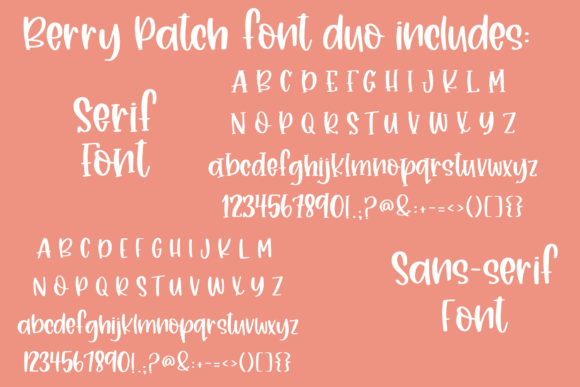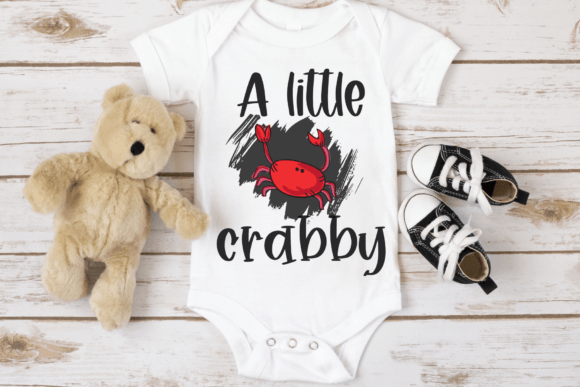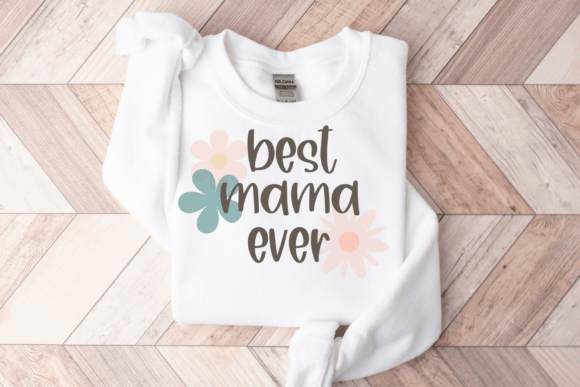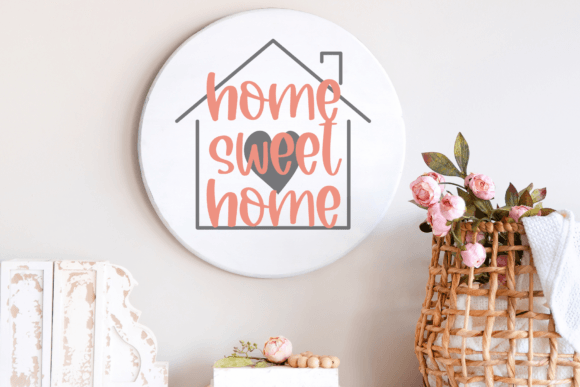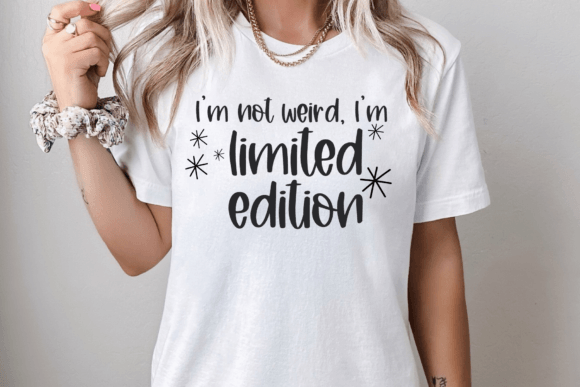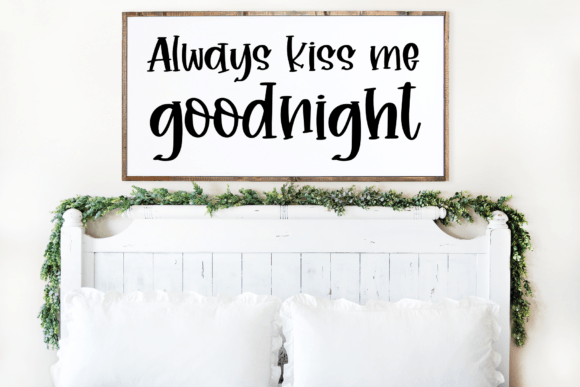
Berry Patch Font: The Sweetest Addition to Your Design Toolbox
Are you a designer or crafter looking for a font that adds a touch of elegance and charm to your projects? Look no further than the Berry Patch font! This sweet and lovely handwritten font is perfect for creating beautiful designs that stand out from the crowd. In this article, we’ll dive into the world of Berry Patch font and explore its features, benefits, and uses.
The Charm of Berry Patch Font
Berry Patch font is a beautiful, handwritten font that exudes warmth and friendliness. Its intricate curves and flowing lines give it a delicate, elegant feel that’s perfect for a variety of projects. Whether you’re designing a wedding invitation, a craft pattern, or a social media graphic, Berry Patch font is sure to add a touch of sweetness and sophistication.
Features of Berry Patch Font
So, what makes Berry Patch font so special? Here are just a few of its key features:
- Handwritten feel: Berry Patch font has a warm, handwritten feel that’s perfect for creating personal and inviting designs.
- Intricate curves: The font’s intricate curves and flowing lines give it a delicate, elegant feel.
- Versatile: Berry Patch font is versatile and can be used for a wide range of projects, from wedding invitations to craft patterns.
- Elegant and charming: The font’s elegant and charming feel makes it perfect for designs that require a touch of sophistication.
Benefits of Using Berry Patch Font
So, why should you choose Berry Patch font for your next project? Here are just a few of the benefits of using this beautiful font:
- Adds a personal touch: Berry Patch font adds a personal touch to your designs, making them feel more inviting and engaging.
- Perfect for branding: The font’s elegant and charming feel makes it perfect for branding projects that require a touch of sophistication.
- Easy to read: Despite its intricate curves, Berry Patch font is easy to read, making it perfect for designs that require a lot of text.
- Unique and creative: Berry Patch font is a unique and creative choice that will set your designs apart from the crowd.
Uses for Berry Patch Font
So, what can you use Berry Patch font for? The possibilities are endless! Here are just a few ideas to get you started:
- Wedding invitations: Berry Patch font is perfect for wedding invitations, adding a touch of elegance and romance to your designs.
- Craft patterns: The font’s intricate curves and flowing lines make it perfect for craft patterns, such as knitting or crochet patterns.
- Social media graphics: Berry Patch font is a great choice for social media graphics, adding a touch of personality and charm to your posts.
- Branding: The font’s elegant and charming feel makes it perfect for branding projects, such as logos, business cards, and letterheads.
Tips for Using Berry Patch Font
Here are a few tips for using Berry Patch font in your designs:
- Use it sparingly: Berry Patch font is a statement font, so use it sparingly to add a touch of elegance and charm to your designs.
- Pair it with a sans-serif font: Pair Berry Patch font with a sans-serif font to create a beautiful contrast and add visual interest to your designs.
- Experiment with colors: Berry Patch font looks beautiful in a variety of colors, so experiment with different colors to find the perfect one for your design.
In conclusion, Berry Patch font is a sweet and lovely handwritten font that’s perfect for adding a touch of elegance and charm to your designs. Its intricate curves and friendly feel make it an ideal choice for a variety of projects, from wedding invitations to craft patterns. With its versatility, elegance, and charm, Berry Patch font is sure to become a favorite in your design toolbox.